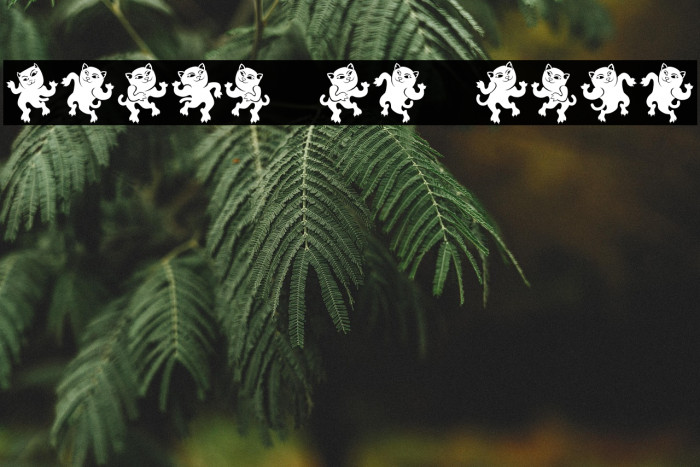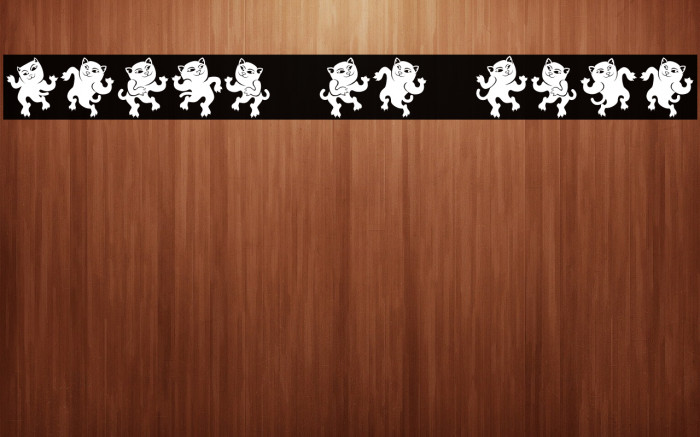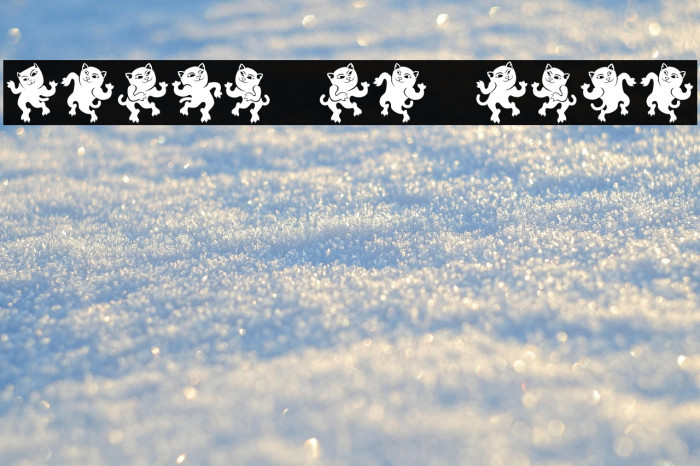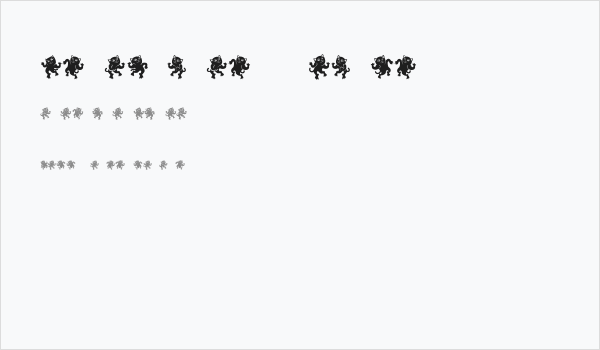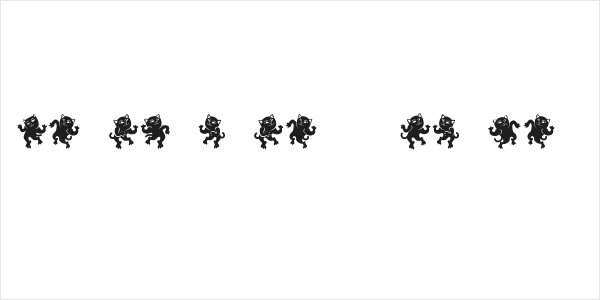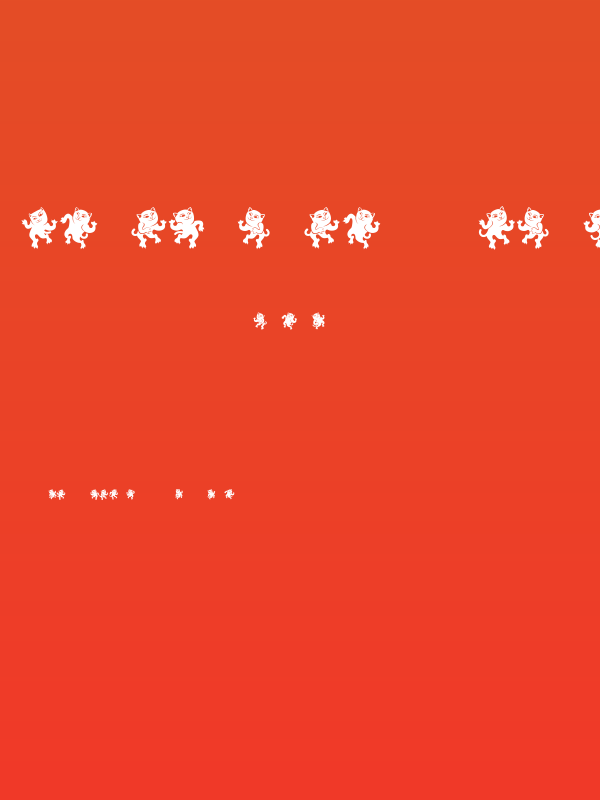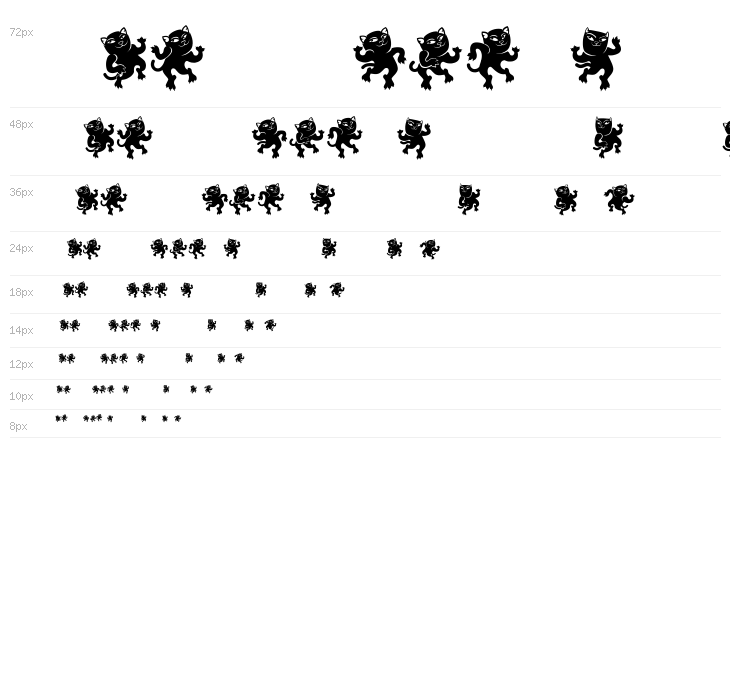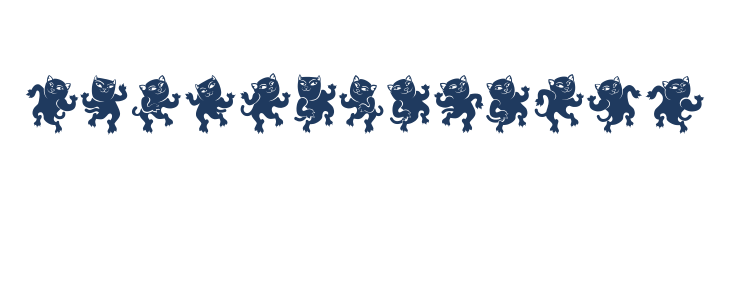
Dancing Cat Regular Font
Dancing Cat Regular Description
A playful decorative font featuring silhouettes of dancing cats in various poses, with each character represented by a unique cat illustration. The style is whimsical and cartoonish, with bold, solid black shapes and exaggerated features.
| Overall Style | Decorative, Playful, Whimsical |
| Use Case | Logos, Headlines, Posters, Themed events |
| Proposed Projects | Children's books, party invitations, playful branding, greeting cards, pet-related designs. |